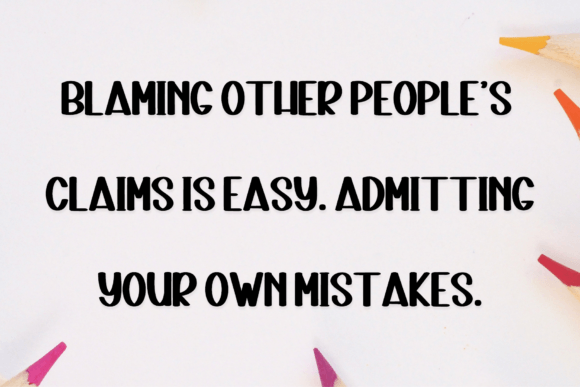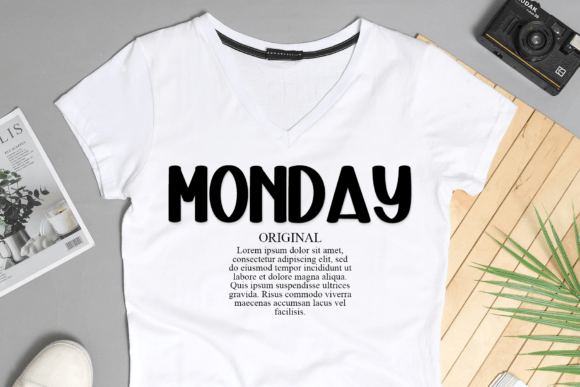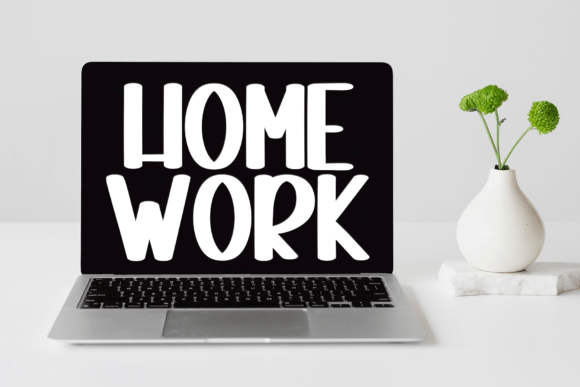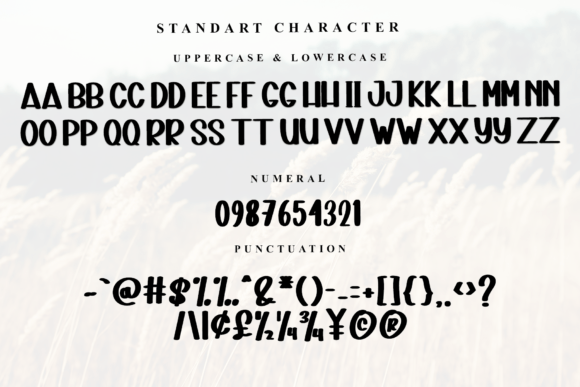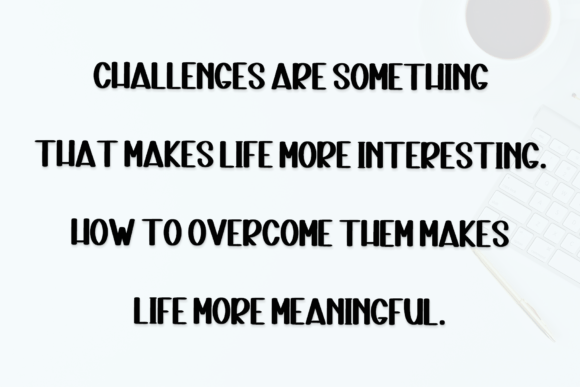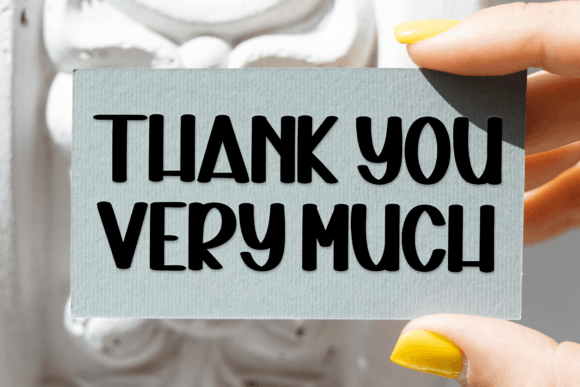
Unlocking the Magic of Baby Winter Font
For those moments of inspiration, you need a font that can keep up. Enter Baby Winter Font, a sweet and friendly handwritten font that’s designed to bring your ideas to life. With its natural and unique style, Baby Winter Font is the perfect partner for any design project, from invitations to posters, and everything in between.
This versatile font is not only beautiful but also highly functional, with PUA coding that makes it easy to access all the amazing glyphs and ligatures. Whether you’re a seasoned designer or just starting out, Baby Winter Font is a valuable addition to your toolkit.
Baby Winter Font Key Features
- Unique Characteristics: The font features a unique, hand-drawn design with a soft and delicate feel, perfect for creating a warm and inviting atmosphere.
- Style Variations: The font includes multiple style variations, such as regular, bold, italic, and bold-italic, to add versatility to your designs.
Baby Winter Font Review
As a designer, I was excited to dive into the “Baby Winter Font” and see if it lived up to its promises. Here’s my honest review.
- The font is extremely versatile and can be used for a wide range of designs, from children’s books to winter-themed advertisements.
- The font’s bold and playful style is perfect for grabbing attention and conveying a sense of fun and whimsy.
- The font is highly customizable, allowing designers to adjust the size, color, and spacing to fit their specific needs.
- The font may not be suitable for formal or professional designs, as its playful style may come across as too childish.
- The font’s bold style can be overwhelming in certain contexts, so designers will need to use it judiciously to avoid visual overload.
- The font may not be compatible with all operating systems or devices, which could lead to formatting issues.
The “Baby Winter Font” is a solid choice for designers who need a playful and attention-grabbing font for winter-themed designs. While it may have some limitations, its versatility and customizability make it a valuable asset for any design project.
Use Baby Winter Font to create winter-themed invitations, greeting cards, or social media graphics.
Combine the font with winter-themed images or illustrations to create a cohesive look.
Experiment with different font sizes and styles to add visual interest to your designs.
Use the font in conjunction with other winter-themed elements, such as snowflakes, pinecones, or holly leaves.
Alternatives to Baby Winter Font
Compared to Baby Winter Font, Carolyna Pro has a more sleek and modern look, making it suitable for use in high-end fashion and beauty designs. While Baby Winter Font has a playful, whimsical feel, Carolyna Pro is more polished and refined.
The Baby Winter Font includes a standard character set, including uppercase and lowercase letters, numbers, punctuation, and special characters. It also includes a range of accents and diacritical marks to support languages such as French, German, and Italian.